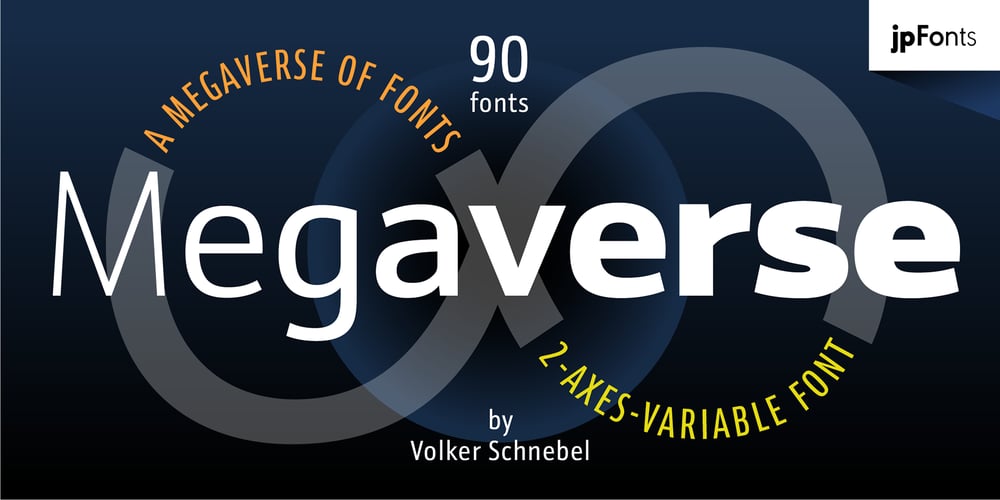
Megaverse VF Font Family was designed by Volker Schnebel and published by jpFonts. Megaverse VF contains 2 styles and family package options. Megaverse VFDesign 2023, Volker SchnebelJP-Fonts GmbH, Hamburg, GermanyMegaverse VF opens up a universe that is beyond others. Not only its style is mega and the scope of the supported languages is beyond others, but the variety of variants opens up a design space that is unique. The complete family includes at least 90 fonts in 5 width levels from UltraCondensed to ExtraExpanded, each in 9 weights from Thin to Black, both upright and italic.It is a universal font that can be used for almost anything. From the official announcement or the informal letter to the letterpress and to the screen display as a corporate font: Megaverse is always convincing.Her character is quite graceful, but also neutral. She seems likeable, but also serious. She impresses with sharpness and precision and yet remains down-to-earth. Her wide range of variants is unique, both in terms of boldness and width. The very different forms of appearance fit together harmoniously as a whole, which gives the user an enormous freedom of design.Megaverse VF is a must-have for anyone who wants to keep adapting a typeface to different circumstances and who enjoys using variants that make the layout more colorful and perfect.All the advantages of the new variable font technology can be optimally applied with Megaverse VF, including optical scaling. Kerning, hinting and other technical requirements are carefully implemented so that the fonts work perfectly under any condition.